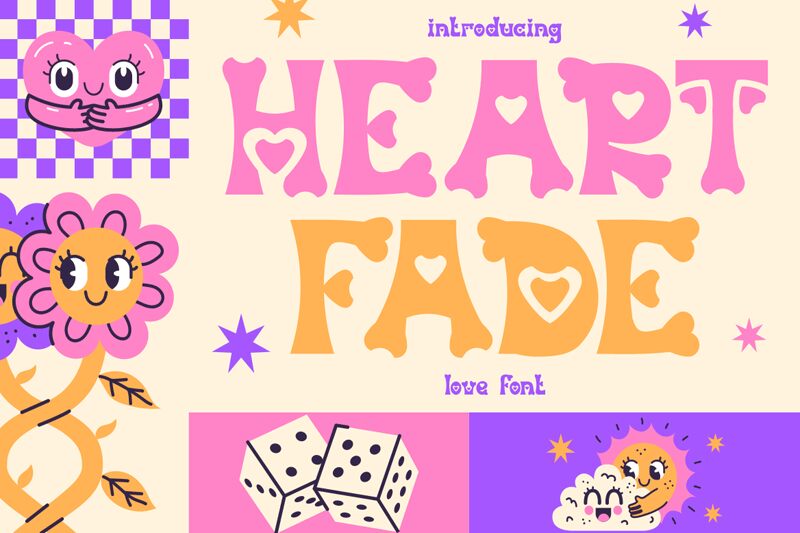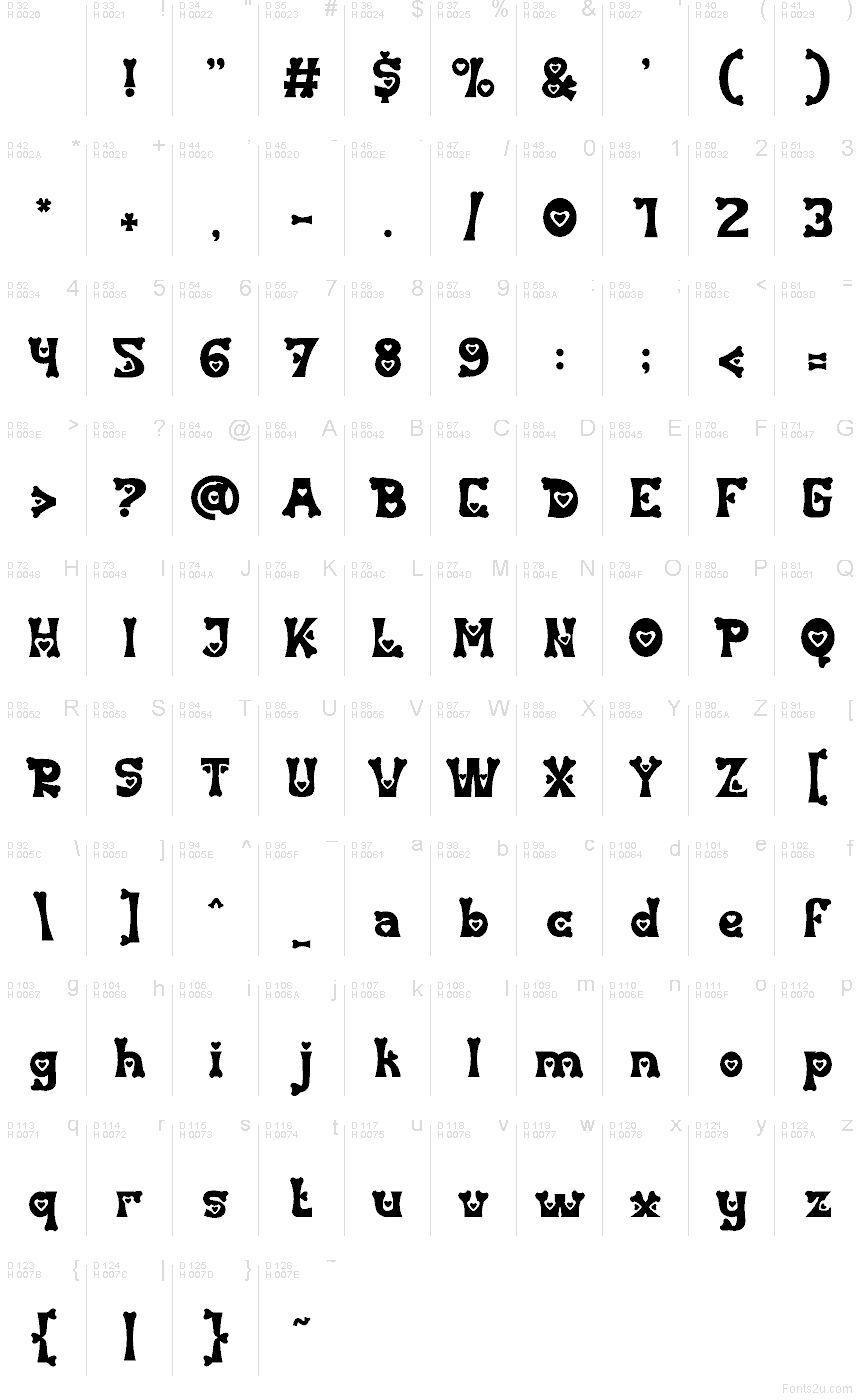
Heart Fade
Heart Fade font by PutraCetol Studio is a free decorative Valentine holiday typeface that turns every word into a little love note. Chunky, inky letterforms ripple with playful curves, while the cut-out hearts tucked inside strokes feel like candy shapes pressed into soft chocolate. The rhythm is bold and bouncy, so your message jumps off the page without feeling stiff or formal.
Using Heart Fade, you can instantly warm up Valentine cards, classroom printables, party invitations, social media graphics, gift tags, and festive banners. This free font shines at larger sizes where the inner hearts and wavy silhouettes can really breathe. Pair it with a clean sans serif for body text, and let Heart Fade handle the headlines and short phrases that need extra sweetness.